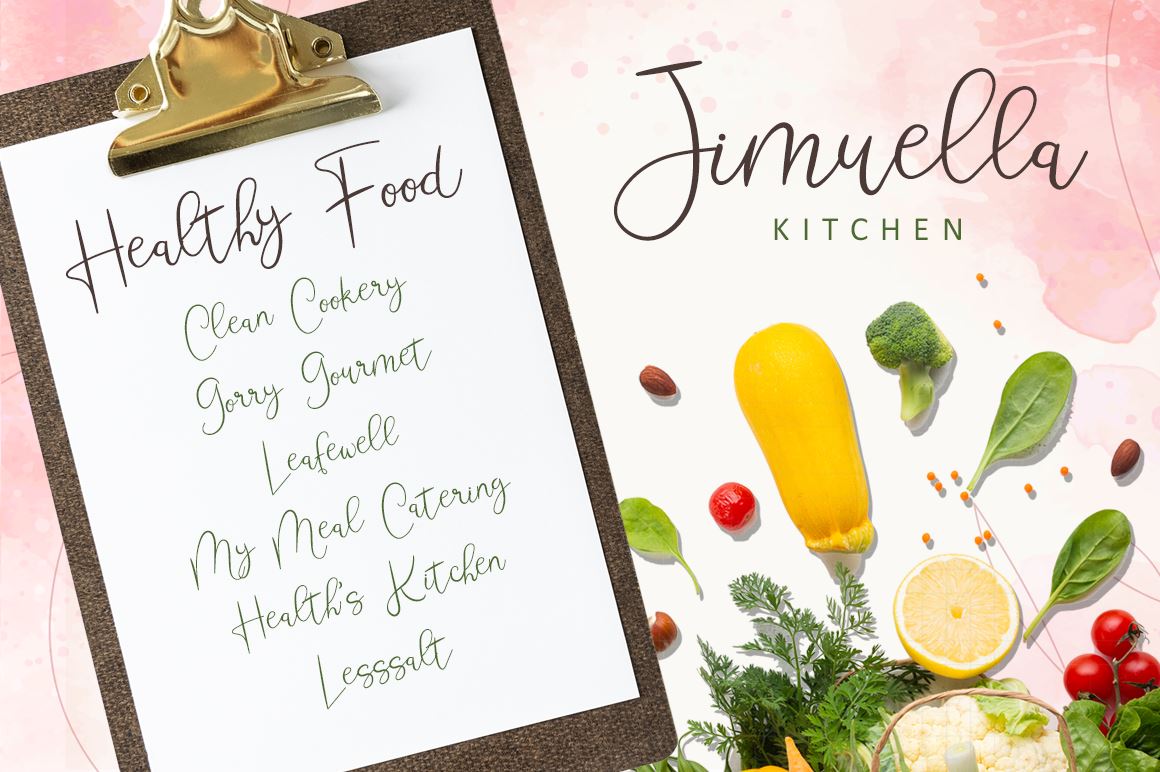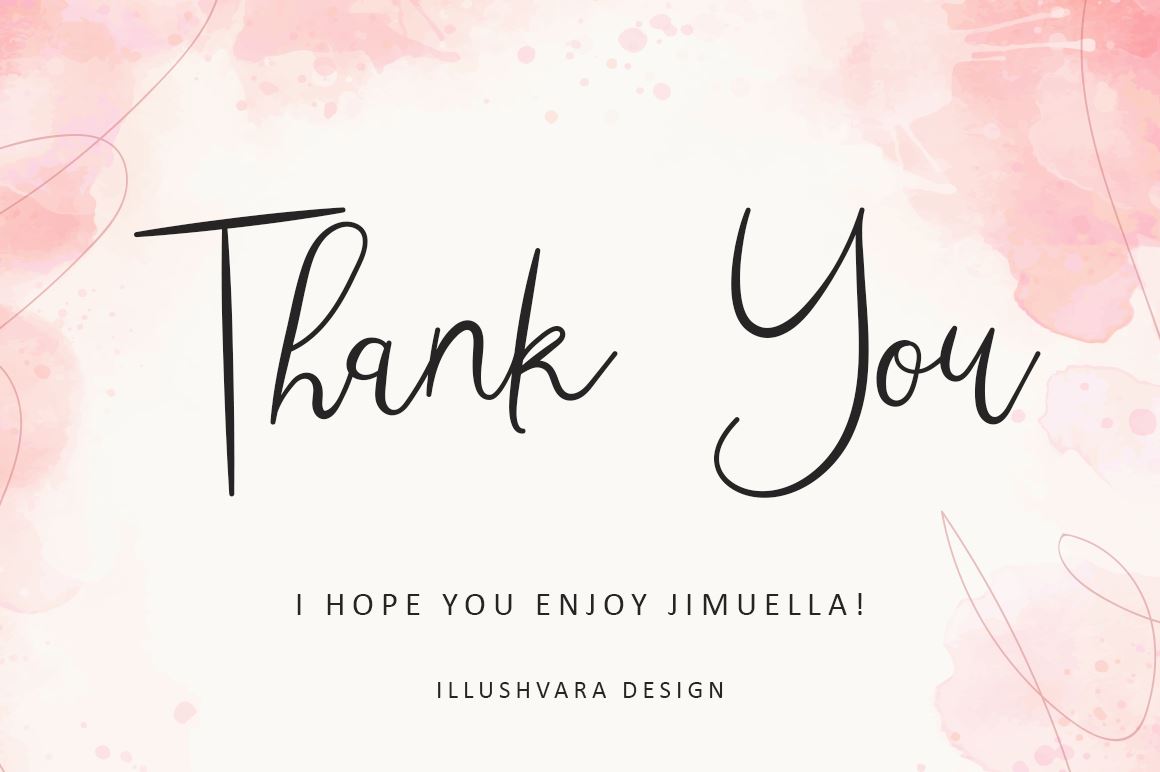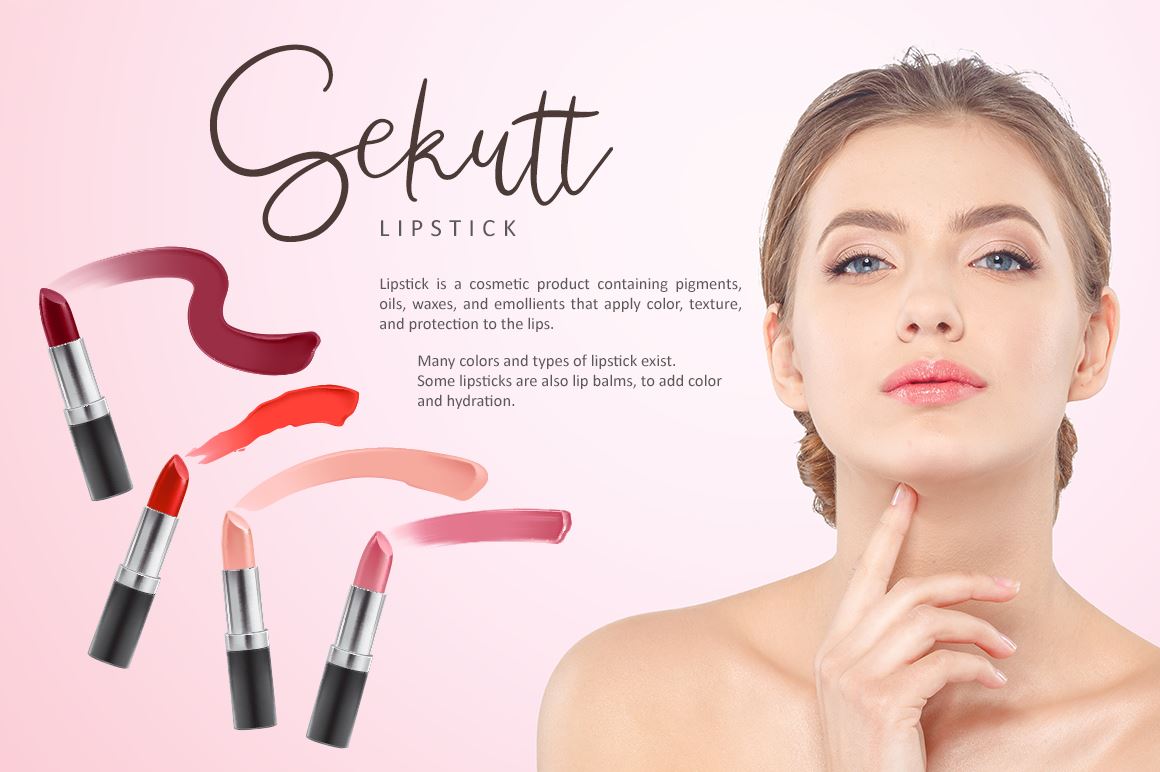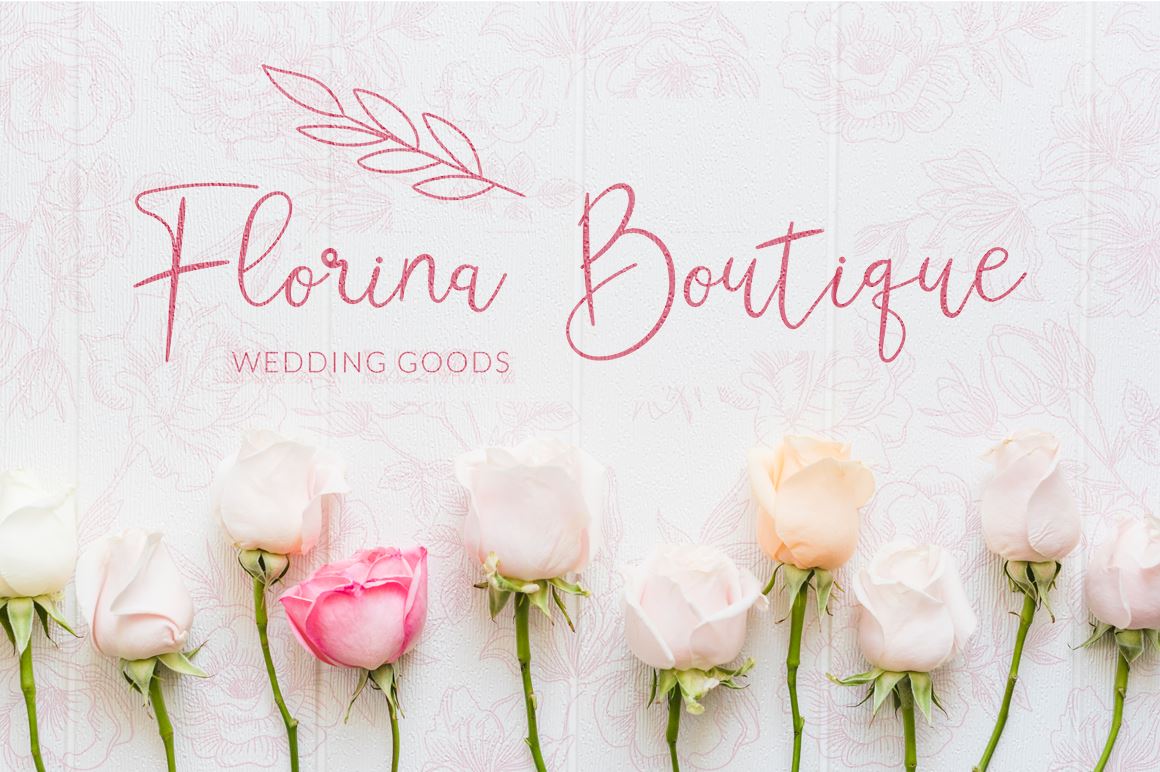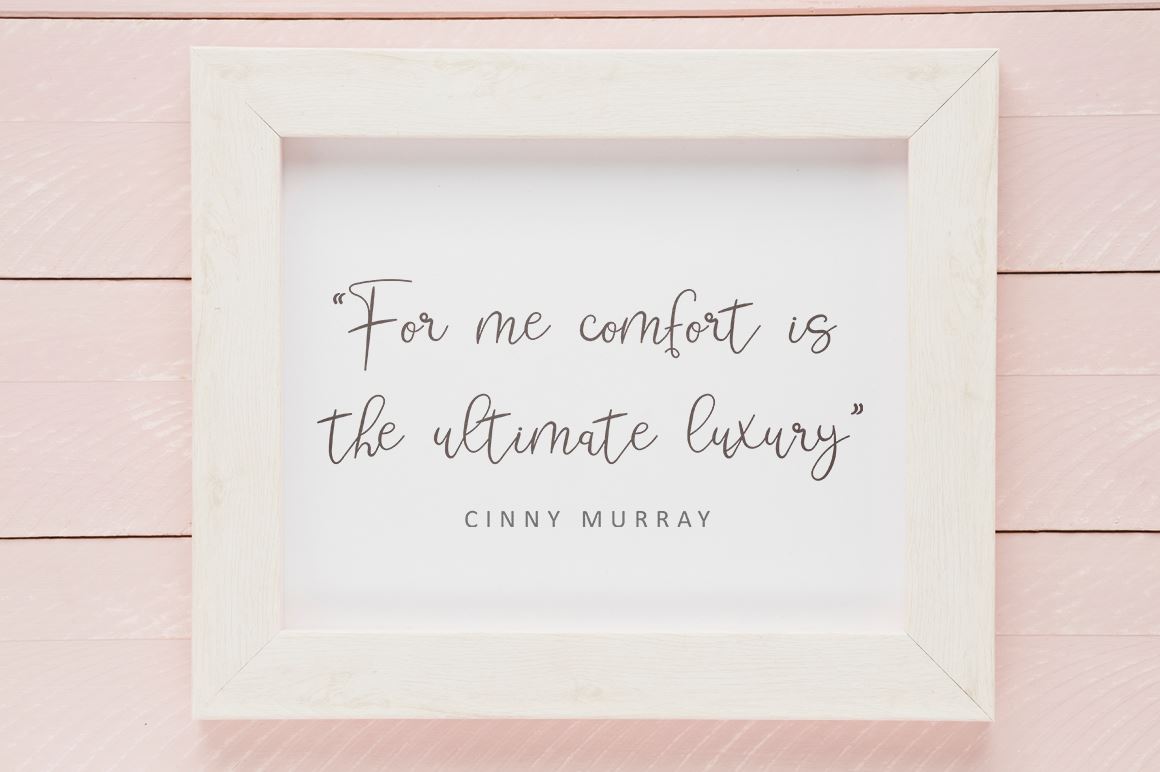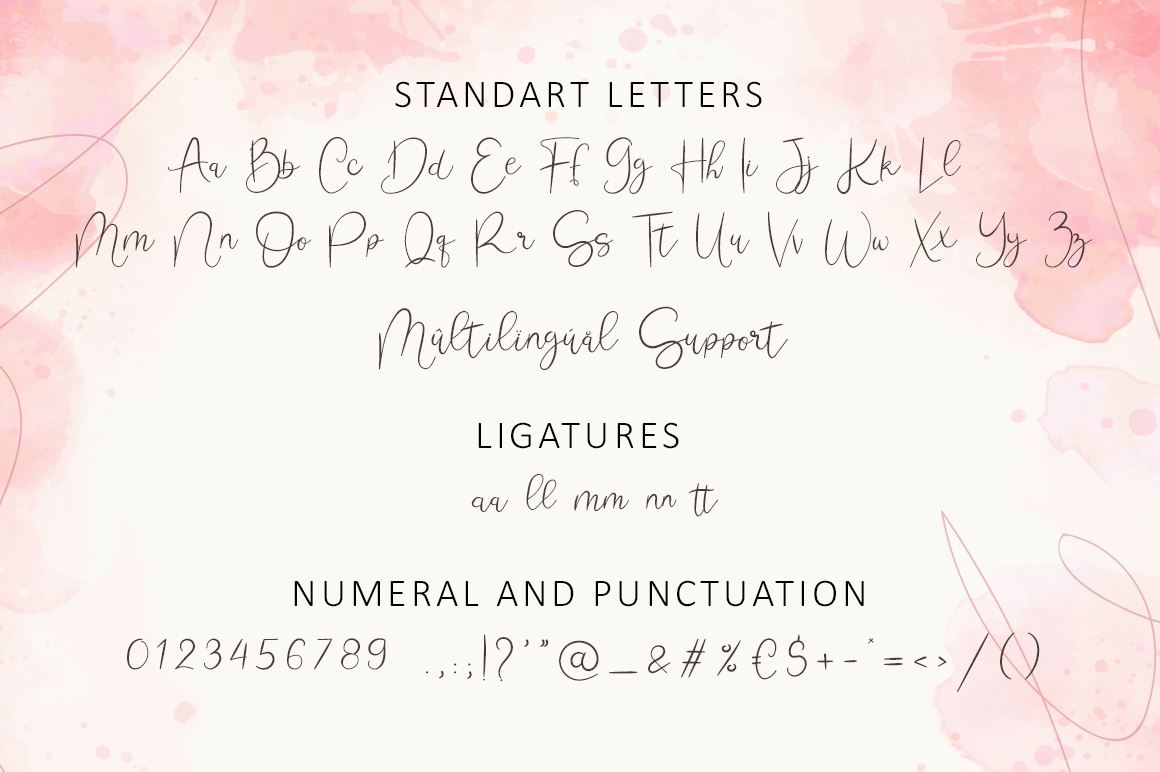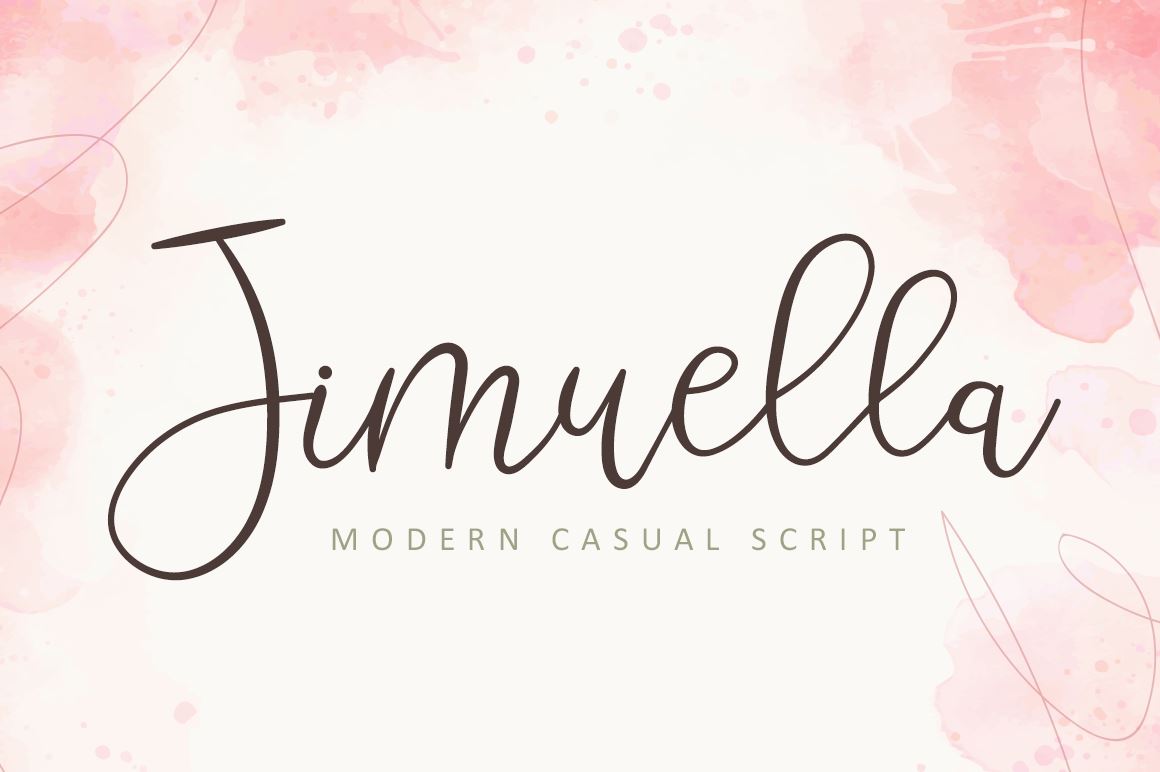
Jimuella – Modern Casual Script
About Jimuella – Modern Casual Script
Jimuella is a flowing handwritten font, described by an elegant touch, perfect for your favorite projects. Fall in love with its incredibly distinct and timeless style and use it to create spectacular designs!